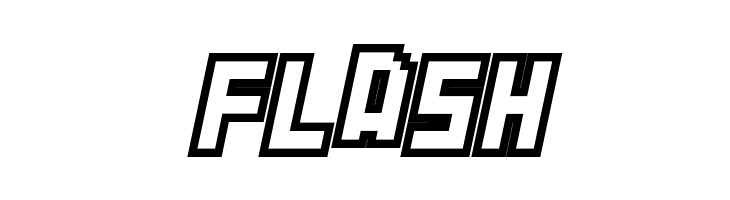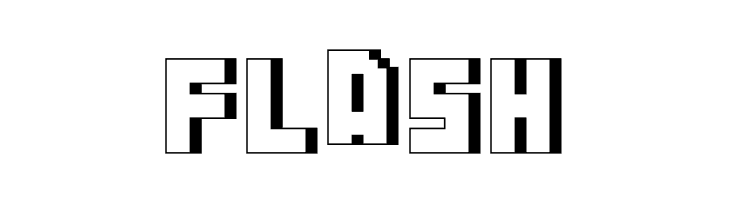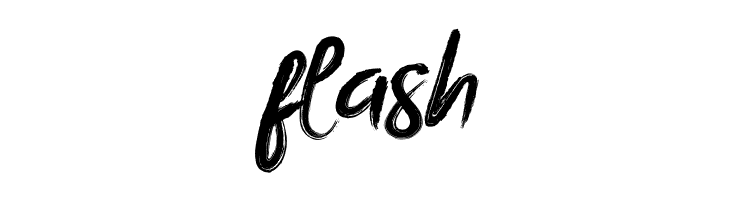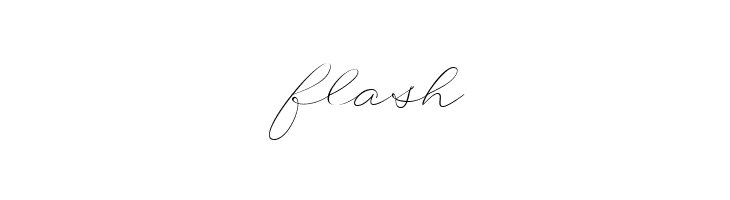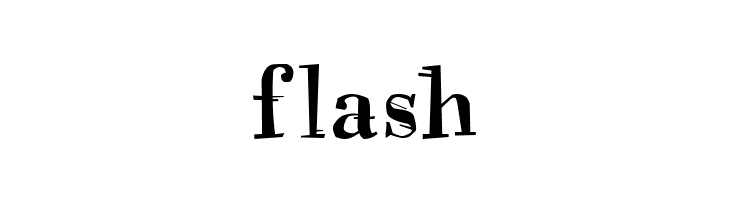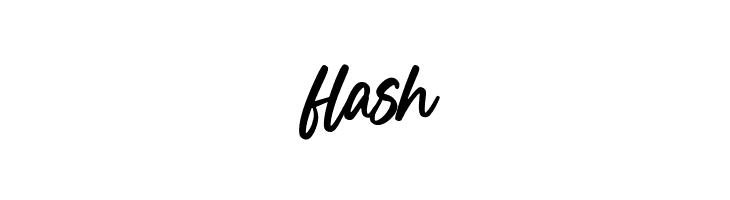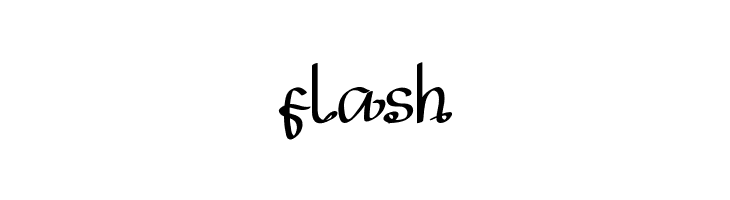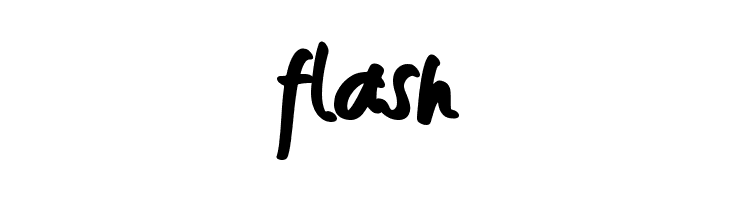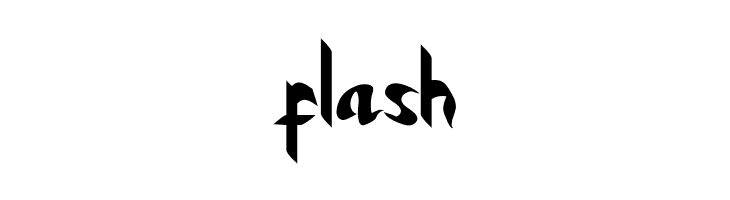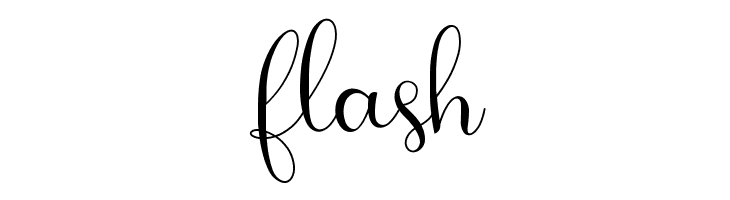
An artistic, cursive-like script with decorative swirls and loops.
A modern, handwritten font with fluid, elegant strokes.
A casual, elegant handwritten script font with smooth, flowing strokes.
A bold, expressive script font with modern, flowing curves and artistic flourishes.
A diverse set of black and white botanical illustrations with varying levels of detail.
An ornate and decorative font with intricate swirls and flourishes.
Botanical illustration font with plant and nature motifs for each character.
A dynamic script font with smooth, flowing lines and a modern touch.
A bold, distressed font with a vintage, textured appearance.
A bold, handwritten font with playful curves and a casual, dynamic style.
A lively, expressive handwritten font with dynamic strokes and playful characters.
A bold, flowing script font with elegant, cursive letterforms and medium contrast.
A bold, cursive font with elegant, flowing lines and decorative flourishes.
A bold, cursive font with an elegant, flowing style.
A bold, pixelated font with a retro, digital aesthetic.
A bold, geometric outline font with a retro, pixelated style and an italic slant.
A bold, 3D block-style font with a pixelated, digital look.
An elegant script font with flowing lines and delicate curves.
An elegant, flowing script font with a handwritten style.
A bold, artistic serif font with playful, modern twists.
A playful, rounded font with a whimsical and friendly style.
A playful, hand-drawn style font with rounded, smooth strokes.
A bold, gothic-style font with sharp edges and dramatic curves.
A bold, gothic-style font with sharp, angular strokes and medieval influences.
A bold, expressive handwritten font with dynamic and fluid strokes.
A playful, handwritten font with elegant, elongated letters and dynamic stroke variations.
A bold, brush-style script font with dynamic, expressive strokes.
An elegant, flowing script font with smooth, cursive strokes.
A fluid and dynamic script font with elegant, connected letterforms.
A modern, minimalist font with thin, elongated characters and a geometric style.
A graceful script font with flowing, cursive letters and elegant swashes.
An elegant, flowing script font with interconnected letters and subtle flourishes.